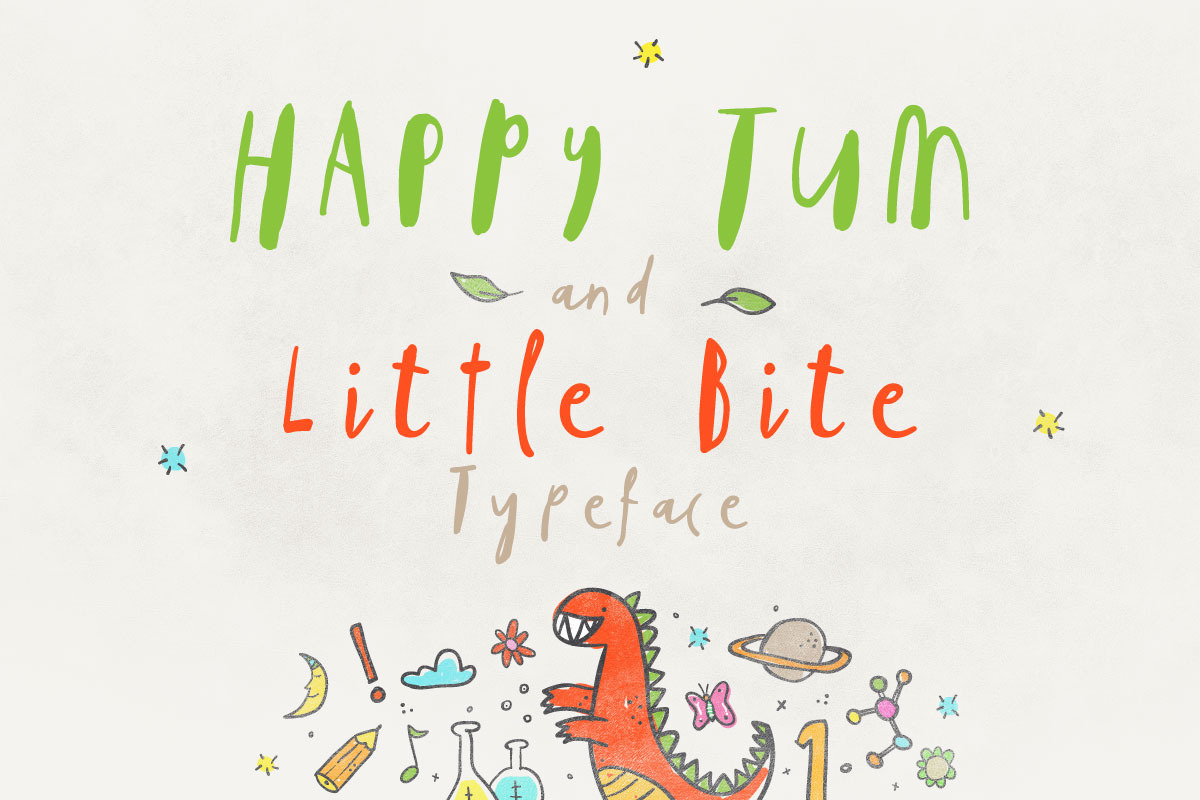
Happy Tum & Little Bite Font
Happy Tum & Little Bite is duo font combination with fun display and script style, every single letters have been carefully crafted to make your text looks beautiful. With modern unique style this font will perfect for many different project ex: book cover, quotes, blog header, poster, branding, logo, fashion, apparel, letter, invitation, stationery, etc.